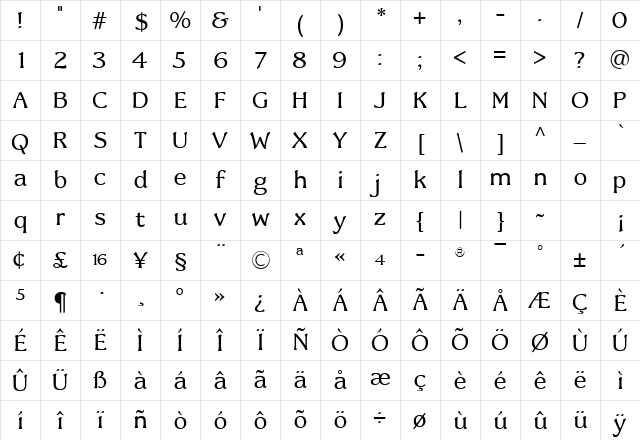
Complete TFBrynMawr Book glyph index. Displaying only characters natively supported by TFBrynMawr Book font.
TFBrynMawr is a composed and adaptable typeface that performs quietly and consistently across a wide range of design contexts.
Who designed the TFBrynMawr Book font?